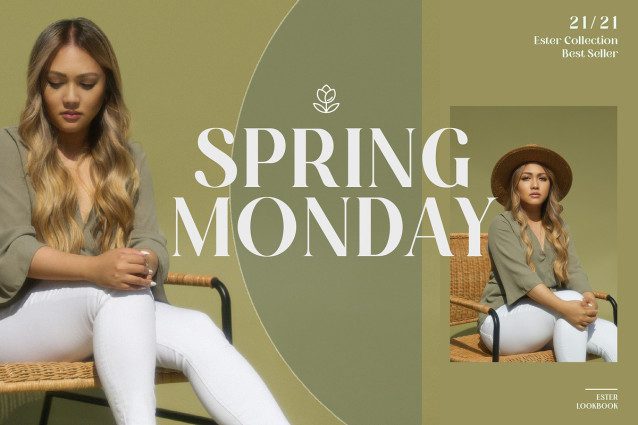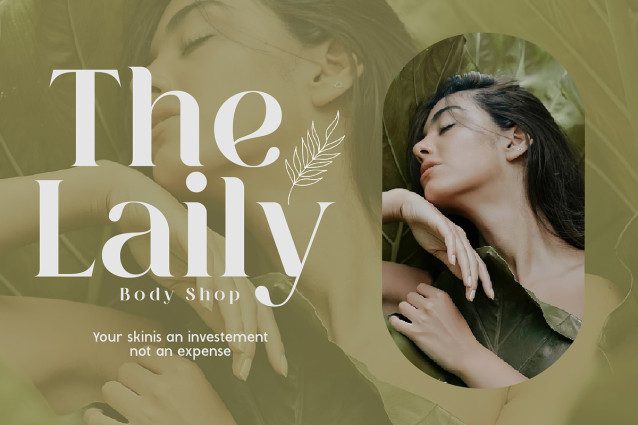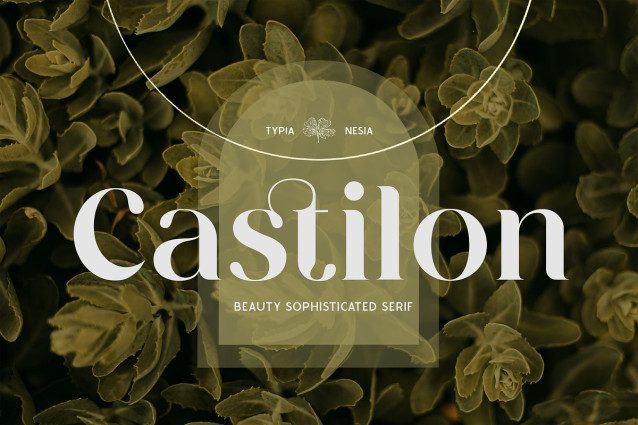
Castilon Font
Castilon Font comes with some alternates and ligatures, so you can combine it to make a perfect typography design. Castilon Elegant Italic Serif font is perfect for your up coming projects. Such as luxury logo and branding, classy editorial design, woman magazine, cosmetic brand, fashion promotional, art gallery branding, museum, historical of architectural, boutique branding, stationery design, blog design, modern advertising design, card invitation, art quote, home decor, book/cover title, special events and any more.